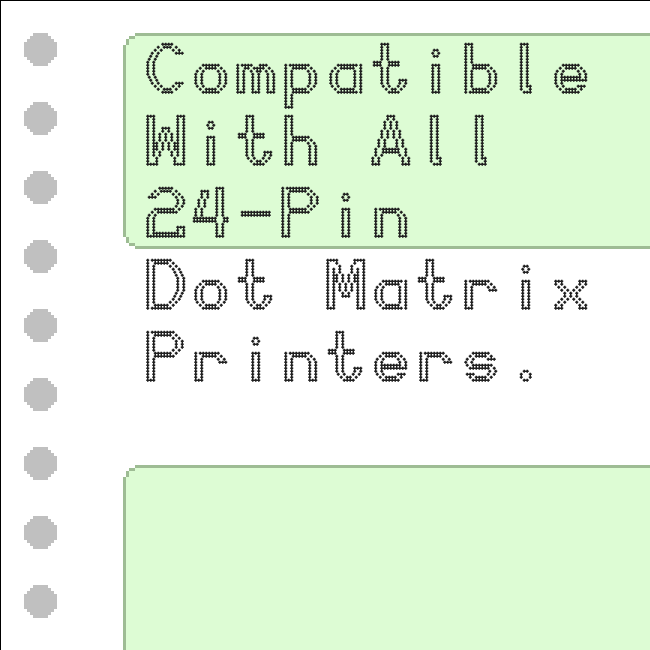
This original 24×15 typeface is designed around the limitations presented by the near letter quality (NLQ) output of dot matrix printers (DMPs) during the '80s & '90s.  Partially inspired by J. David Sapir's DOS font design program, LQMATRIX, it could have easily been created using that program back in the day.
(The "smart phone"-looking character in the À position is simply a placeholder, used as a quick reference to set vertical height lines while FontStructing.)
Dear Goatmeal: I don't understand much about dot printers, but I have a question: Could a printer alter the print lines to do what you suggest with your glyphs, taking the dots out of their print line? It is something that has caught my attention about this font, I do not know if it will have any meaning apart from the merely aesthetic or artistic ... Please, instruct me. Thanks in advance.
Sorry. That's well be the explanation?
@elmoyenique - Greetings, and thank you for the interest in this silly font!  Because the print head is simply moving back and forth laterally, placing the print head in a 1/2-position is what likely resulted the "near letter quality" output of these printers (but I'm certainly no expert -- I shall have to research!).
To be honest, it was more of a design choice for these two fonts:
1. The horizontals are 2 dots tall, while the verticals are 3 dots wide -- the horizontals certainly could have easily been 3 dots tall (which would be the "expected" deisgn).
2. I liked the idea of limiting "1/2"-position dots, forcing your eyes & brain to "complete what's missing" with the negative space and lack of dots...
So while I _could_ have lined them up "properly," we likely wouldn't be having this conversation with such a boring, "traditional" design, compadre!  :^)
@elmoyenique - And based on the 24-pin print head you attached, you can see it's not 24 pins high, but two groups of off-set 12 pins.  So, my fonts wouldn't really print out to look like what I have here (24 dots tall).  However, it _is_ what it would look like on the DOS LQMATRIX design screen.  ;^)
Still, it was a fun design exercise. :^)